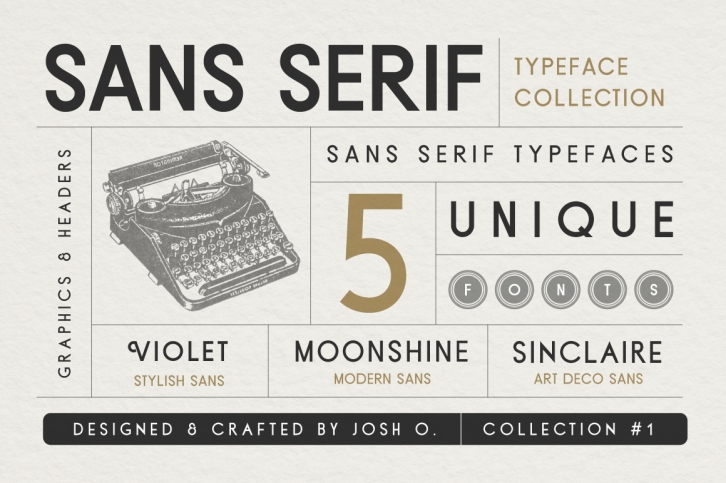
Sans Serif Typeface Collection is a gorgeous font that was realeased on June 5, 2017. The font can be used in many style contexts and design environments. Perfect for invitations, magazines, websites, logos, and more! It was designed by Josh Ownby and the file size is 6.48 MB. Thanks for checking out this font!